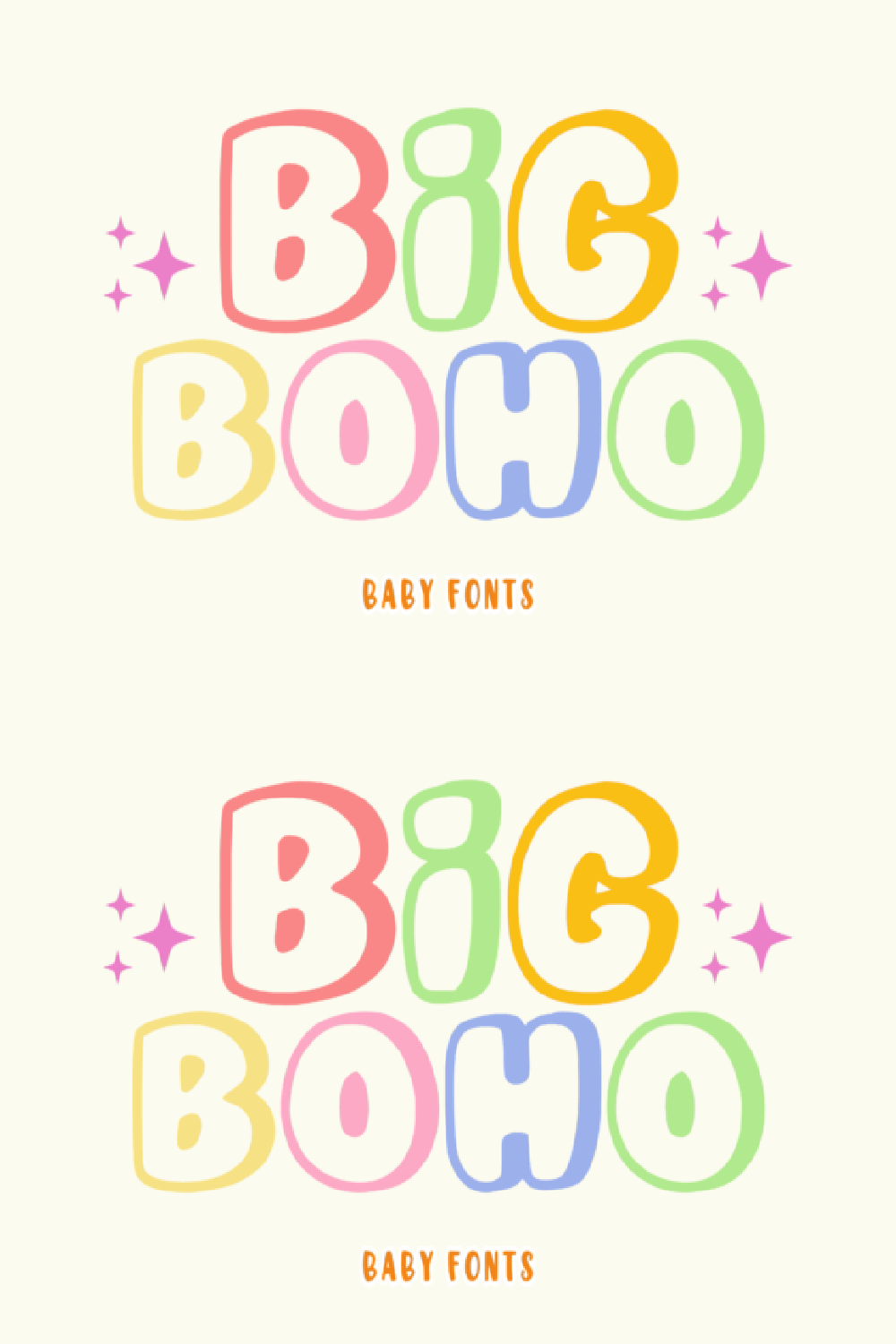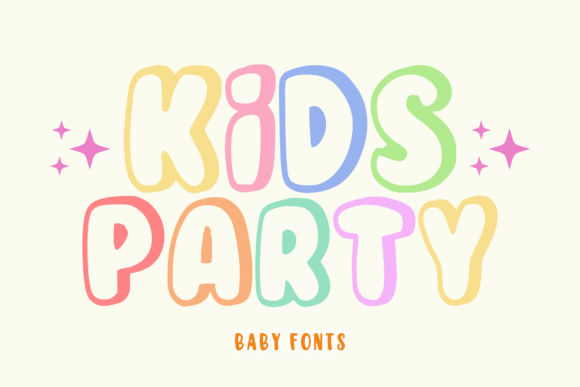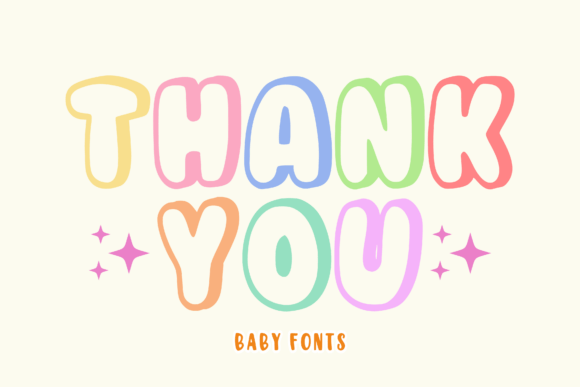
Big Boho Font: A Cute Display Font for Playful Designs
About the Big Boho Font
Make a bold statement with Big Boho Font, a powerful and memorable font. Big Boho is a cheerful and cute display font. It is lively, cheerful, and elegant. Big Boho is a stunning font for various cute-themed designs, such as t-shirts, displays, crafts, stickers, quotes, mugs, sublimation, posters, web, banners, and many more.